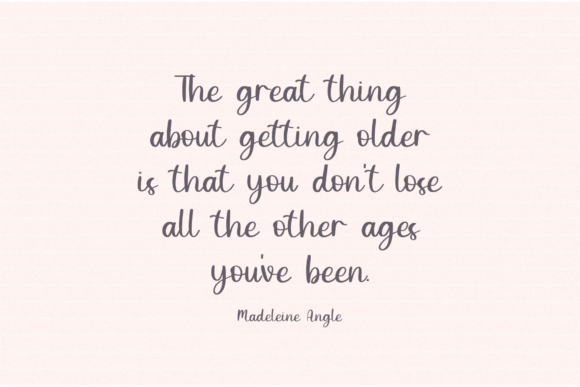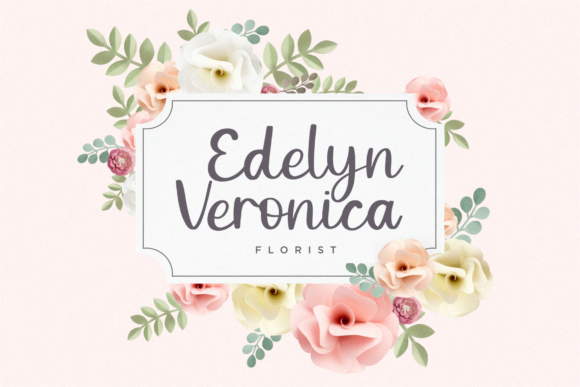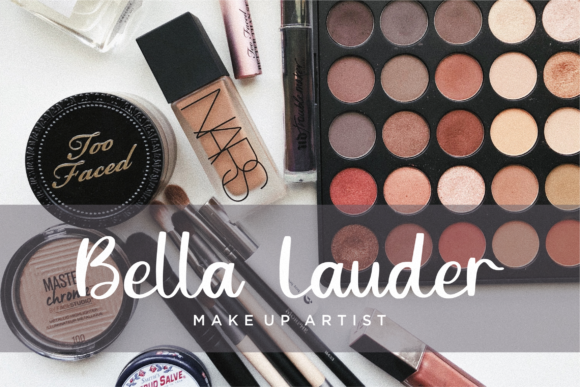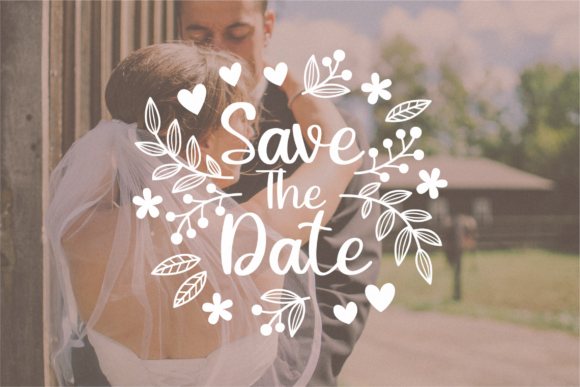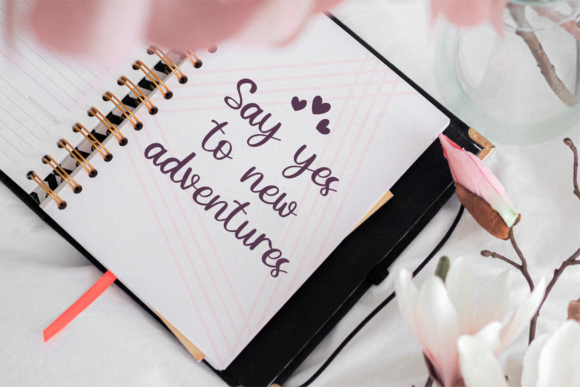
Introduction to Magicpearl Font
Have you ever found yourself in the middle of a creative project, staring at a blank canvas, searching for the perfect font to bring your vision to life? For designers, this moment is all too familiar. It’s the moment of truth, where the right choice can make all the difference between a mediocre design and a masterpiece.
This is where the Magicpearl Font comes in – a chic, refined script font that exudes sophistication and elegance. With its stylish alternates and ligatures, this font is the ultimate design resource for any creative project. Whether you’re working on a high-quality branding project or a design that requires a transparent background, Magicpearl Font is the perfect match.
Key Features of Magicpearl Font
- High-quality design resource with a unique, elegant aesthetic, ideal for creative projects.
- Features a transparent background, allowing for effortless customization and blending with any design element.
- Includes a comprehensive set of glyphs, making it suitable for a wide range of applications, from logos to typography.
- Designed with precision and attention to detail, resulting in crisp, high-resolution fonts (up to 300 DPI) perfect for print and digital projects.
- Perfect for designers seeking a stylish, sophisticated font to elevate their creative project, whether it’s a logo, branding, or publication.
Honest Review: Magicpearl Font
As a designer, I’ve had the chance to work with various design resources, and the Magicpearl Font is definitely one that caught my eye. Its unique blend of whimsical and elegant elements makes it perfect for creative projects that require a touch of magic.
The font comes with a transparent background, allowing for seamless integration with any design. The high quality of the font is evident in its crisp lines and well-defined characters. I’ve used it in several projects, and it always adds a special something to the design.
- ✨ Unique and creative style that sets it apart from other fonts
- ✨ High quality characters that look great on any device
That being said, there are a few limitations:
- ⚠️ Limited character set, which may not be suitable for longer texts
- ⚠️ Not as versatile as some other fonts, may not work well in certain contexts
Overall, I’m impressed with the Magicpearl Font and would definitely recommend it to designers looking for a unique and creative font for their projects. Just be aware of its limitations and use it accordingly.
Tips for Getting the Most Out of Magicpearl Font
Experiment with different font sizes and colors to create a unique visual identity.
The Magicpearl Font is ideal for creating invitations, social media graphics, and other creative projects that require a high-quality, eye-catching font.
Can I use the Magicpearl Font for designs with a transparent background?
Yes, the Magicpearl Font has a transparent background, making it perfect for designs that require a high level of customization and creativity. The font’s transparent background allows you to easily combine it with other design elements, such as images and shapes, to create a unique and eye-catching design.